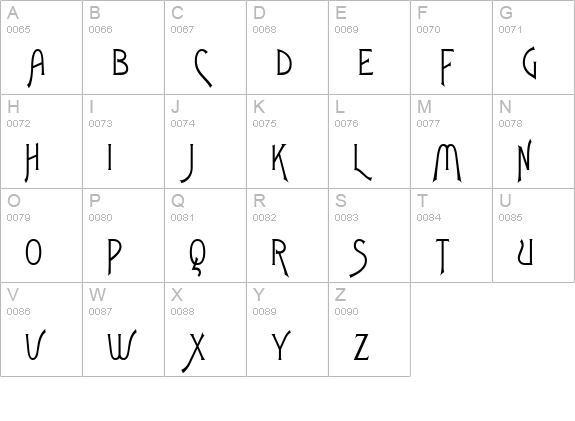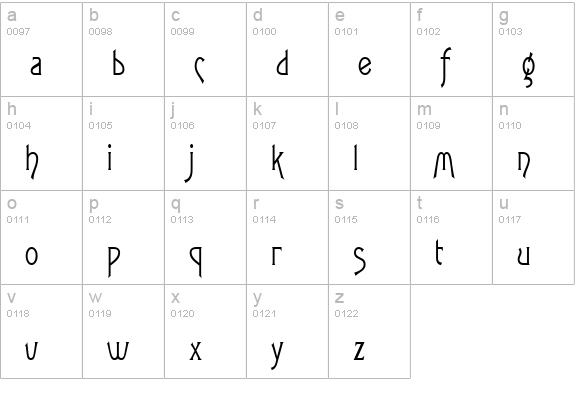
Fletch Condensed Normal Font Details
Fletch Condensed Normal is the standard, neutral, condensed-width variant in the Fletch typeface family \xE2\x80\x94 well suited to general body text, paragraphs, and standard typographic work.
Fletch Condensed Normal font is a sleek and modern typeface that exudes elegance and professionalism. With its clean lines and balanced proportions, this font is perfect for a wide range of design projects, from branding to editorial layouts. The condensed style adds a touch of sophistication while maintaining readability. What makes Fletch Condensed Normal font even more appealing is that it is available for free download at FontsMarket.com. This means you can elevate your design projects without breaking the bank. Whether you're looking to create a stylish logo, a chic website, or eye-catching marketing materials, Fletch Condensed Normal font has got you covered. Don't miss out on this fantastic opportunity to enhance your designs with a high-quality font that is both versatile and visually striking. Download Fletch Condensed Normal font today and take your projects to the next level!